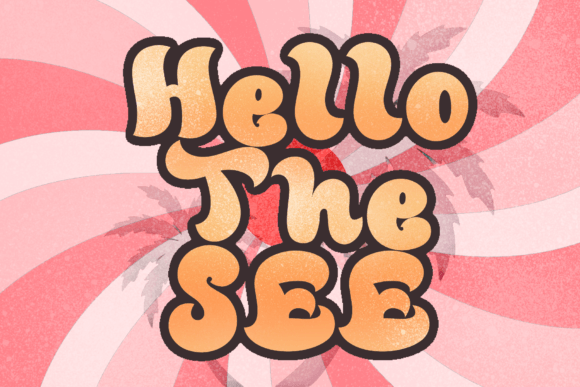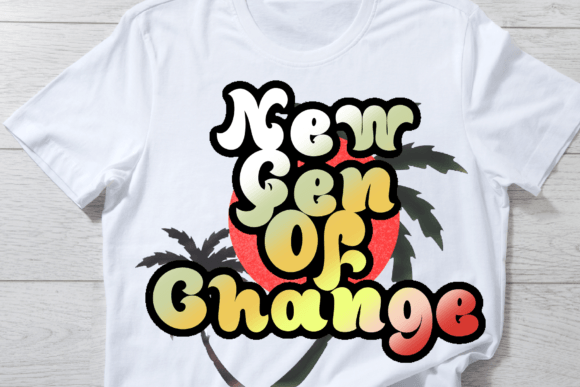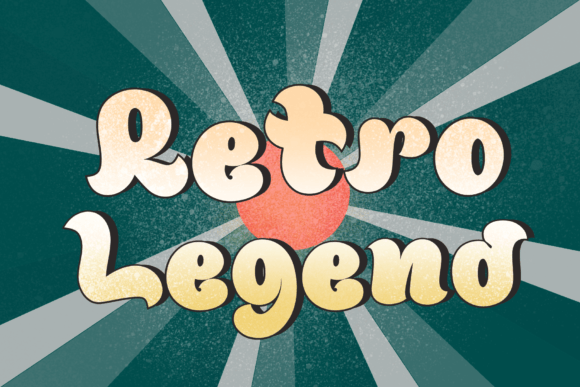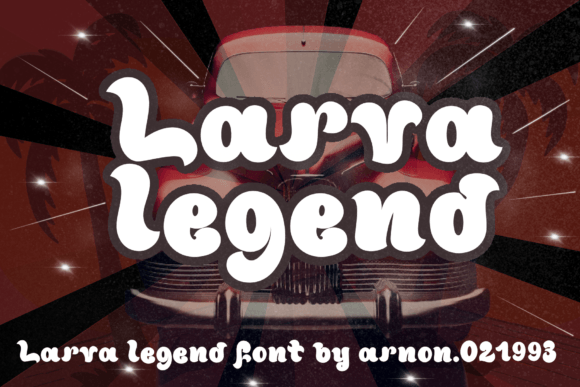
Introduction to Larva Legend Font
Larva Legend is a versatile, playful, and retro display font.
It is perfect for a wide spectrum of applications such as greeting cards, headlines, and many more Add it confidently to your projects, and you will love the results.
Key Features of Larva Legend Font
Why Choose Larva Legend Font?
Larva Legend Font offers exceptional quality and versatility, making it a valuable addition to your design toolkit. Whether you’re creating for personal projects or commercial use, Larva Legend Font delivers professional results.